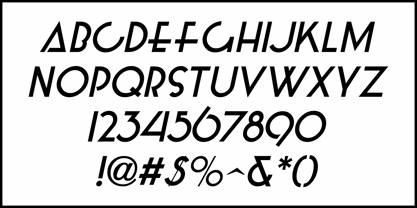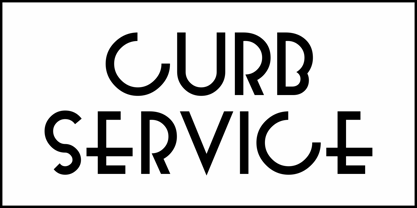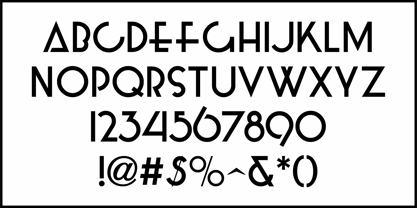
Curb Service JNL
by Jeff Levine
The Curb Service JNL Font Family was designed by Jeff Levine and published by Jeff Levine. Curb Service JNL contains 2 styles and family package options. More about this family
A classified ad in the January, 1944 edition The Record Changer for a Duke Ellington records want list was hand lettered in a unique Art Deco sans serif type design.
This served as the model for Curb Service JNL. which is available in both regular and oblique version.